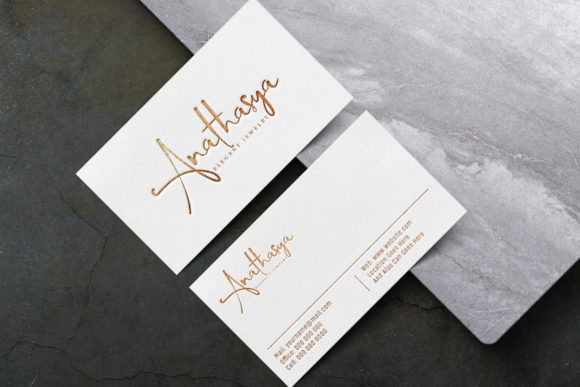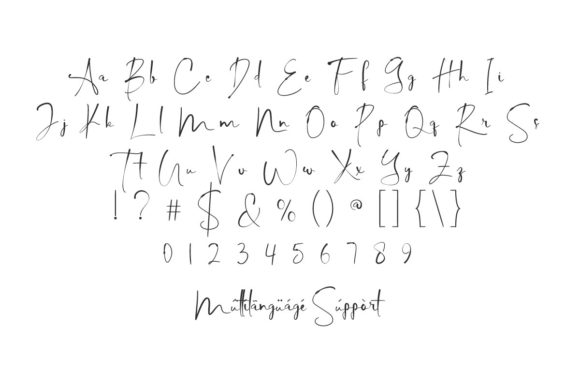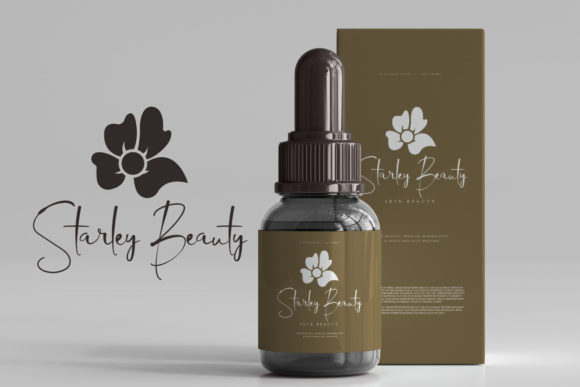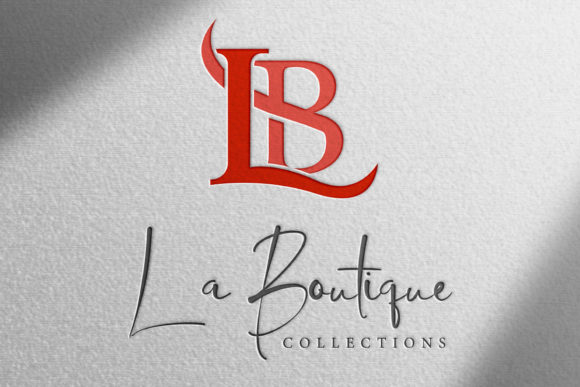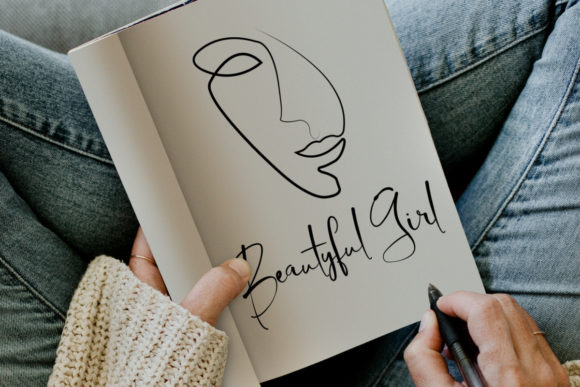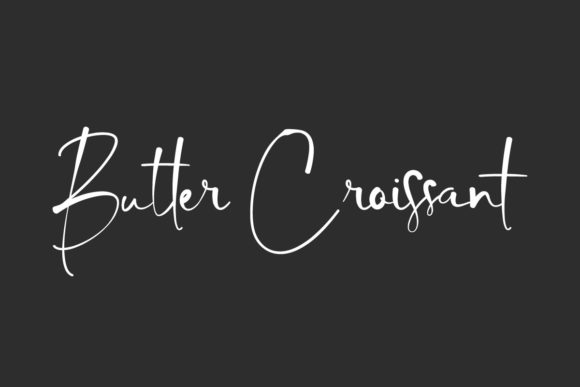
Introducing Butter Croissant Font: The Perfect Addition to Your Design Collection
Are you a designer or crafter looking for a unique and stylish font to elevate your projects? Look no further than the Butter Croissant font! This lovely handwriting font boasts a signature style that is sure to add a touch of elegance and sophistication to any design. With its blend of thick and thin lines that connect each other, Butter Croissant creates a fresh and modern feel that is perfect for a wide range of applications.
What Makes Butter Croissant Font So Special?
Butter Croissant font is a one-of-a-kind typeface that has been carefully crafted to provide a distinctive and refined look. Its unique name is matched only by its unique appearance, making it a standout in any design collection. The font’s handwriting style gives it a personal and approachable feel, while its signature style adds a level of sophistication and glamour.
The Benefits of Using Butter Croissant Font
So why choose Butter Croissant font for your next project? For starters, its minimalist feel makes it perfect for designs that require a clean and simple aesthetic. Whether you’re creating a brochure, business card, logo, product packaging, screen printing design, signage, title, or website, Butter Croissant font is sure to impress. Its versatility and adaptability make it an excellent choice for designers and crafters who need a font that can keep up with their creative vision.
PUA Encoding: What It Means for You
Butter Croissant font is PUA (Private Use Area) encoded, which means that you can access all of the glyphs and swashes with ease. This encoding allows you to unlock the full potential of the font, giving you greater creative control and flexibility. With PUA encoding, you can effortlessly navigate the font’s various features and use them to enhance your designs.
Design Applications for Butter Croissant Font
So what can you create with Butter Croissant font? The possibilities are endless! Here are just a few ideas to get you started:
- Brochures: Add a touch of elegance to your marketing materials with Butter Croissant font.
- Business Cards: Stand out from the crowd with a stylish and sophisticated business card design.
- Logos: Create a memorable and impactful logo that reflects your brand’s personality.
- Product Packaging: Elevate your product packaging with a beautiful and eye-catching design.
- Screen Printing Design: Create stunning screen prints with Butter Croissant font.
- Signage: Make a statement with eye-catching signage that showcases your brand’s style.
- Titles: Add a touch of glamour to your titles and headings with Butter Croissant font.
- Websites: Enhance your website’s design with a clean and modern font that reflects your brand’s personality.
Tips for Getting the Most Out of Butter Croissant Font
To get the most out of Butter Croissant font, here are a few tips to keep in mind:
- Experiment with different sizes: Butter Croissant font looks great in a variety of sizes, from small and delicate to large and bold.
- Play with colors: Try pairing Butter Croissant font with different colors to create a unique and eye-catching design.
- Mix and match: Combine Butter Croissant font with other fonts to create a distinctive and visually appealing design.
In conclusion, Butter Croissant font is a versatile and stylish typeface that is perfect for designers and crafters who need a font that can add a touch of elegance and sophistication to their projects. With its unique handwriting style, blend of thick and thin lines, and PUA encoding, Butter Croissant font is sure to become a favorite in your design collection. So why wait? Download Butter Croissant font today and start creating stunning designs that showcase your creativity and style!